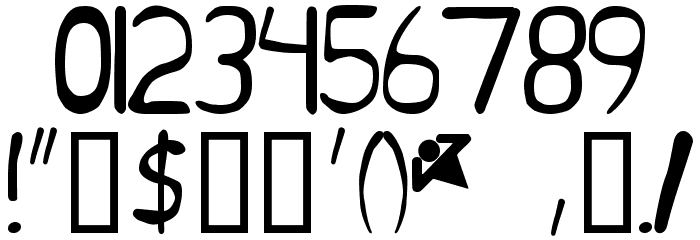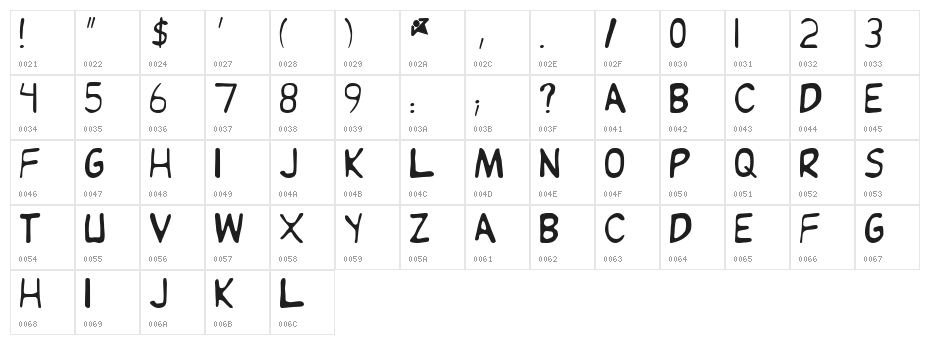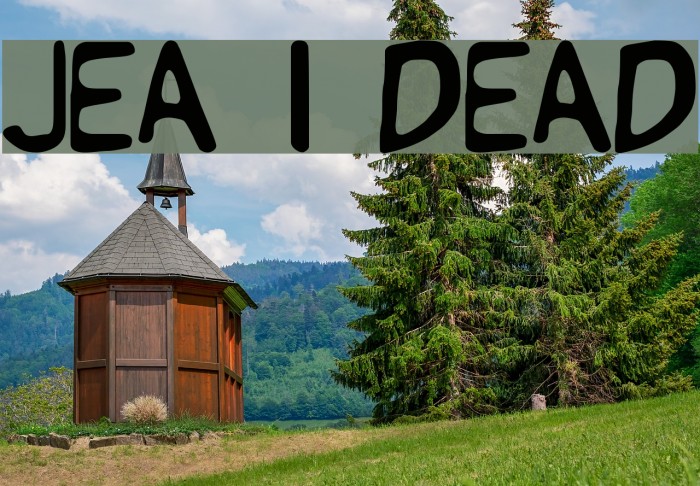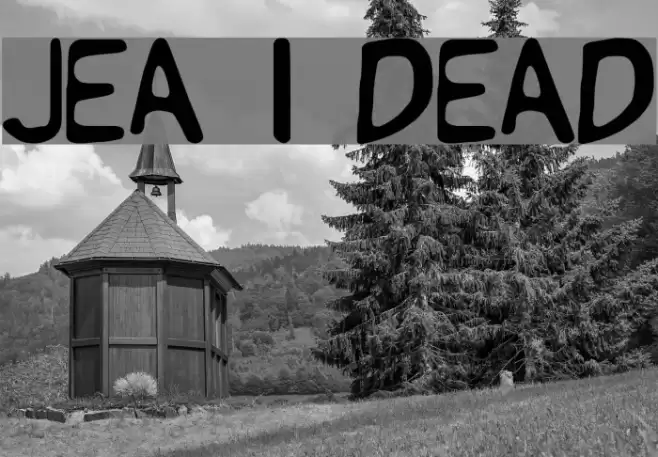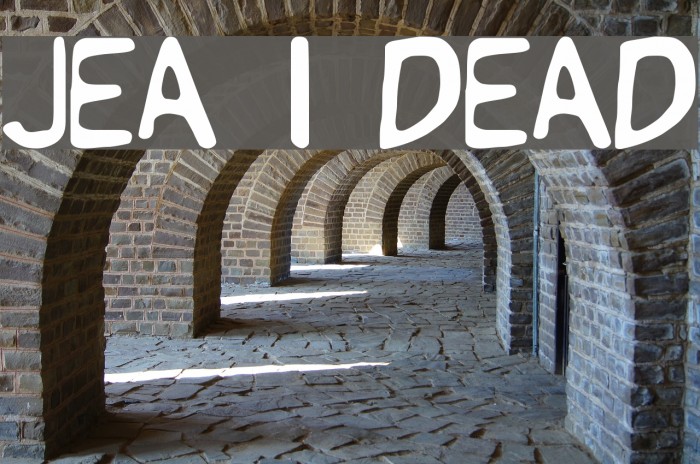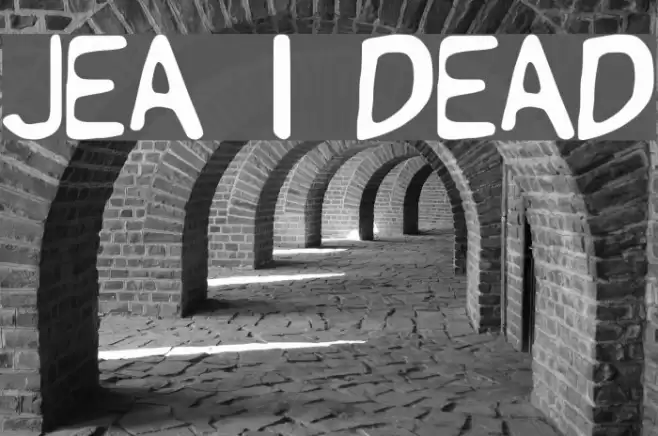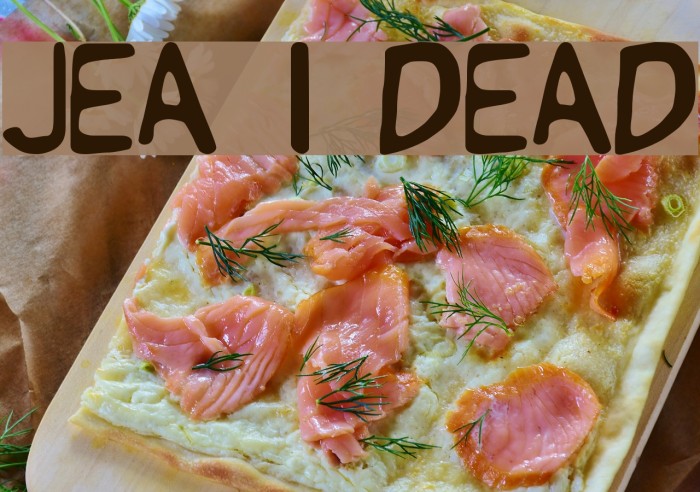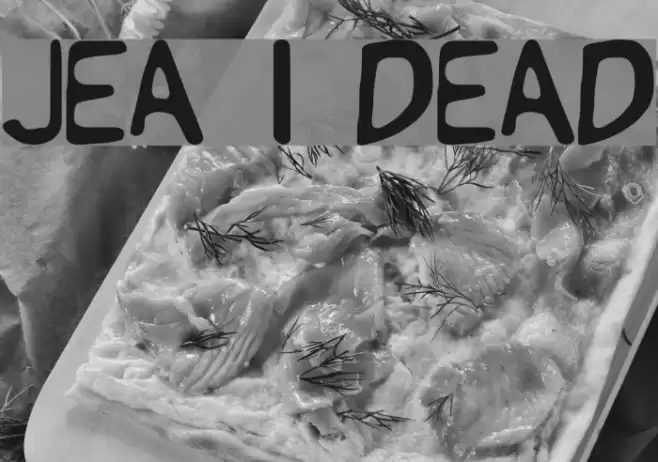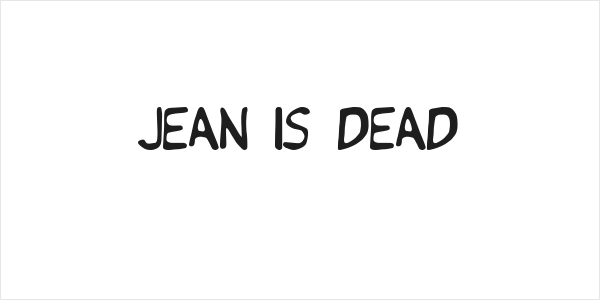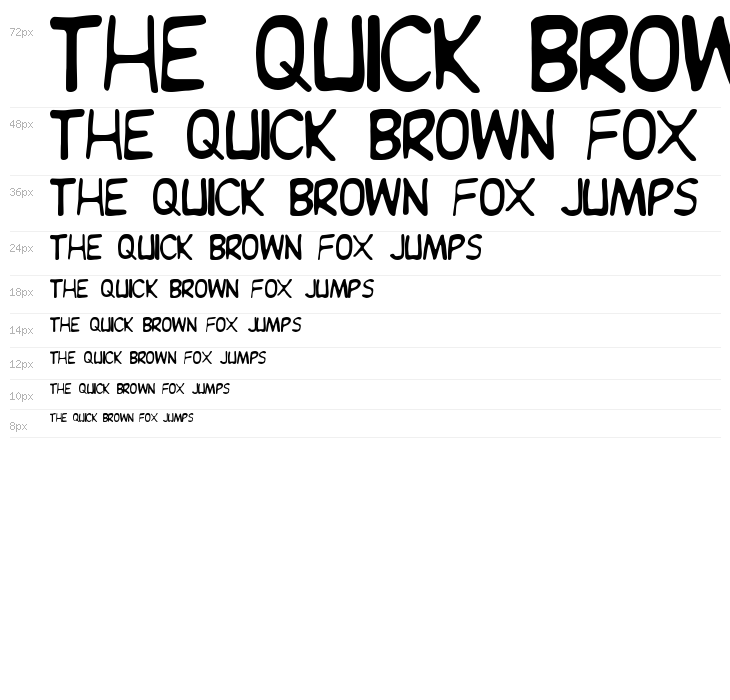
Jean is Dead Font
Jean is Dead Description
This font features a bold, playful style with a hand-drawn appearance. The characters are slightly irregular, giving it a casual and informal feel. The uppercase and lowercase letters maintain a consistent height, while the numbers are rounded and quirky. Special characters are creatively designed, adding to the font's unique personality. The strokes are thick and uniform, contributing to its bold presence. This font is ideal for projects that require a fun and engaging look, such as children's books, posters, or casual branding.
| Proposed Projects | Ideal for children's books, posters, casual branding, and playful designs. |